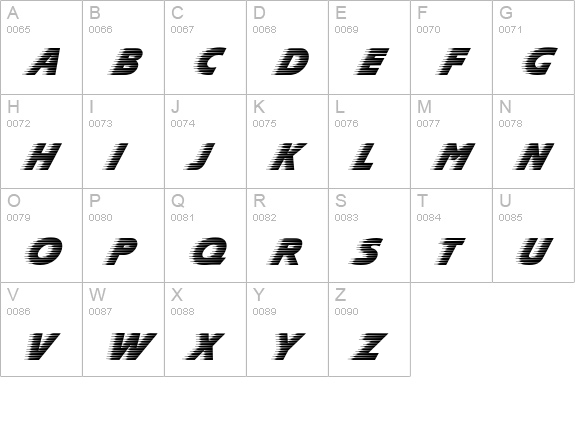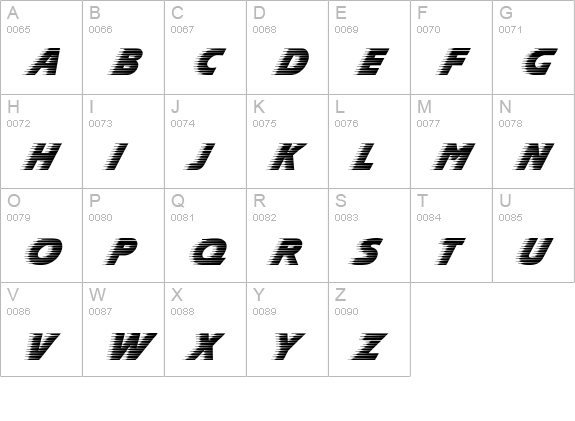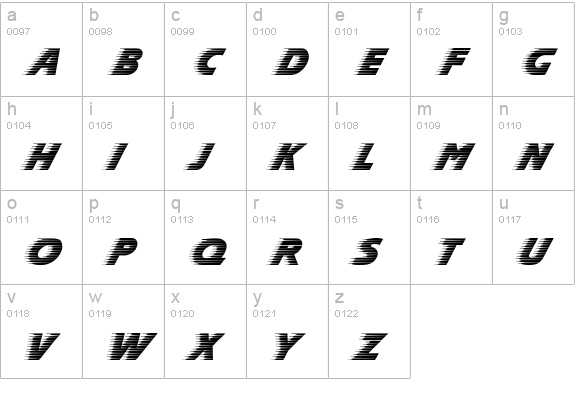
SlipstreamEF Font Details
SlipstreamEF is a captivating and versatile font that effortlessly combines modernity with a touch of elegance. Its sleek and fluid letterforms exude a sense of movement, making it perfect for designs that aim to captivate and inspire. With its clean lines and balanced proportions, SlipstreamEF is a font that can easily adapt to any project or theme. Whether it's used in headlines, logos, or body text, this font commands attention and adds a contemporary flair to any design. One of the most remarkable aspects of SlipstreamEF is that it is completely free. Yes, you read that right! This exceptional font is freely available to download at FontsMarket.com. Now, you can enhance your creative endeavors without any cost or restrictions. SlipstreamEF offers a wide range of weights and styles, allowing you to experiment and create unique compositions. From the bold and impactful to the subtle and nuanced, this font has it all. Its versatility enables it to effortlessly complement various design aesthetics, making it a must-have for any designer or typographer. Whether you're working on a branding project, a website design, or even a personal creative endeavor, SlipstreamEF will elevate your work to new heights. Its modern yet timeless appeal will ensure that your designs stand out from the crowd. So why wait? Download SlipstreamEF today from FontsMarket.com and unleash your creativity with this incredible font. Experience the freedom and versatility that SlipstreamEF brings to your designs, and watch as your projects take on a whole new level of sophistication and impact.